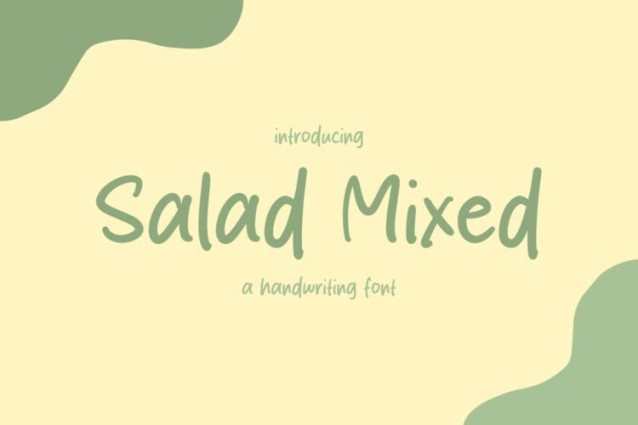
Salad Mixed Font
Salad Mixed Font is a simple and friendly handwritten font. Its natural and unique style makes it incredibly fitting to a large pool of designs. The only limit is your imagination!